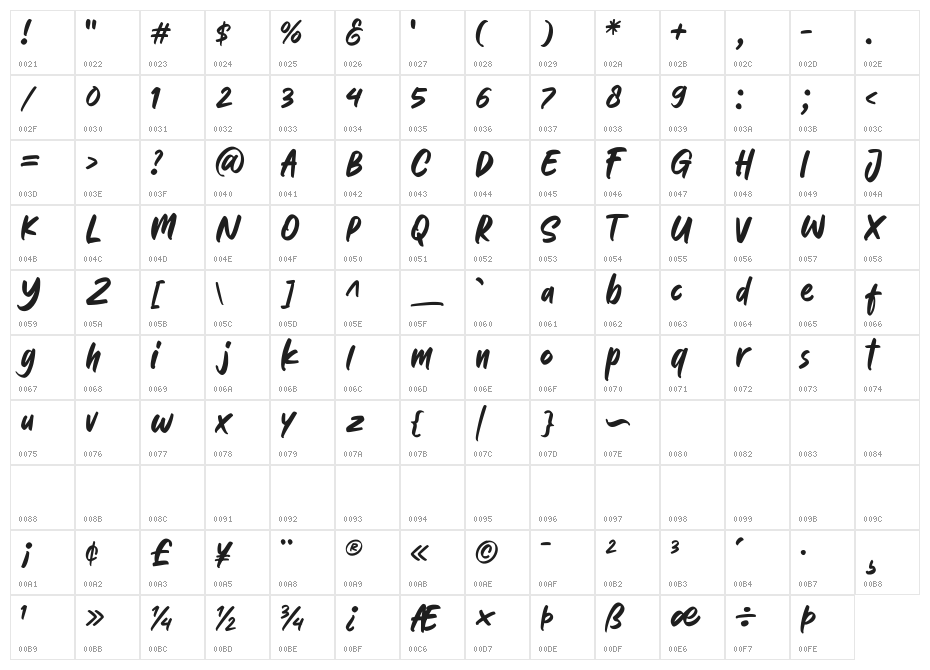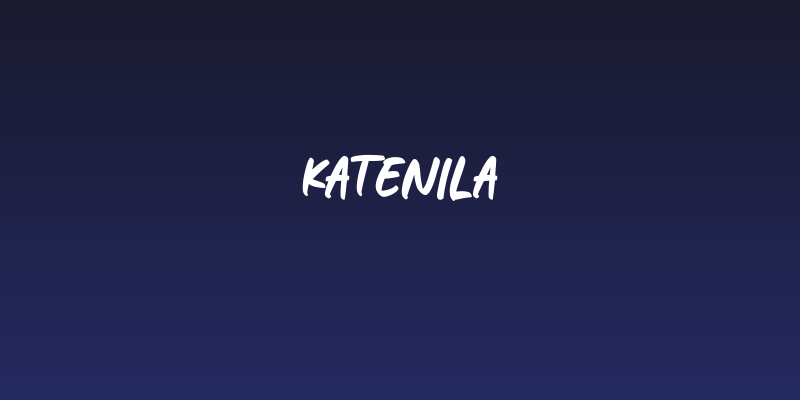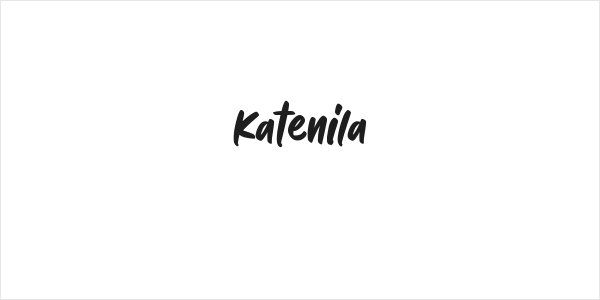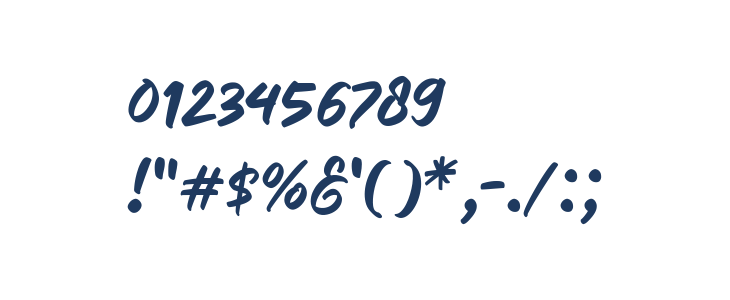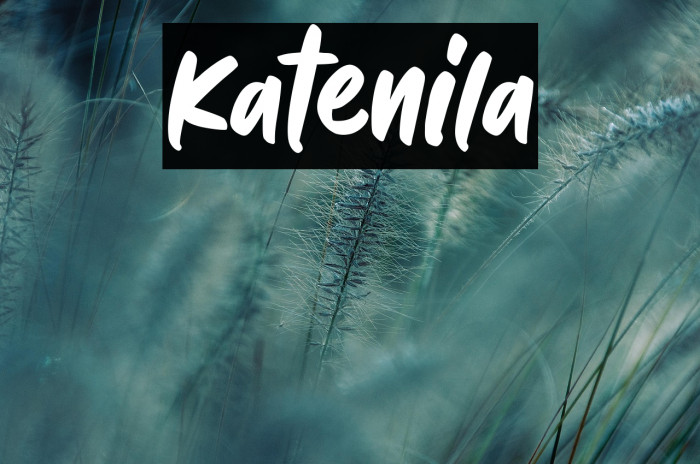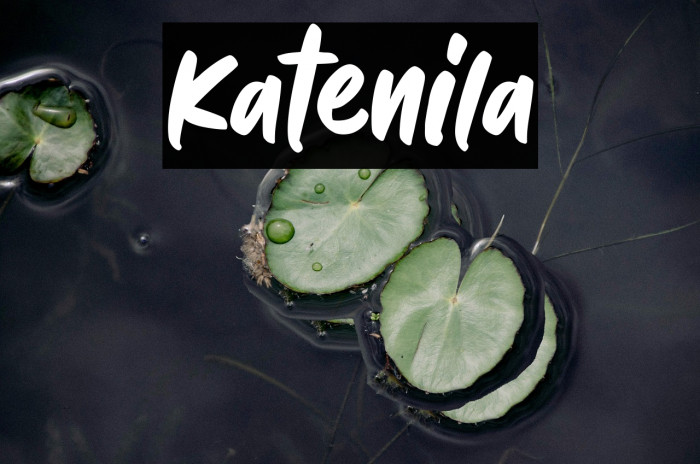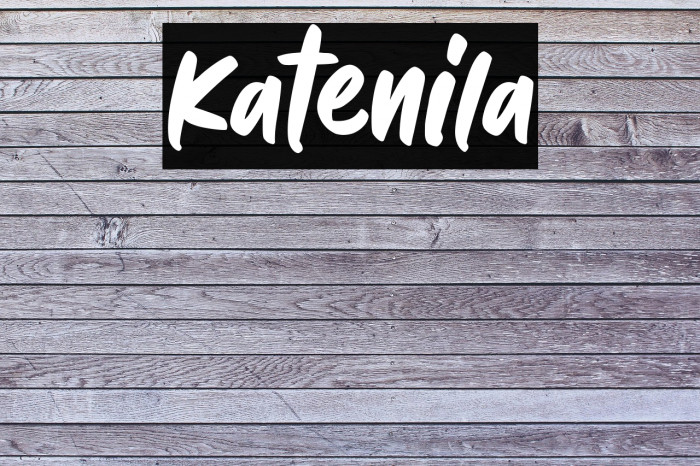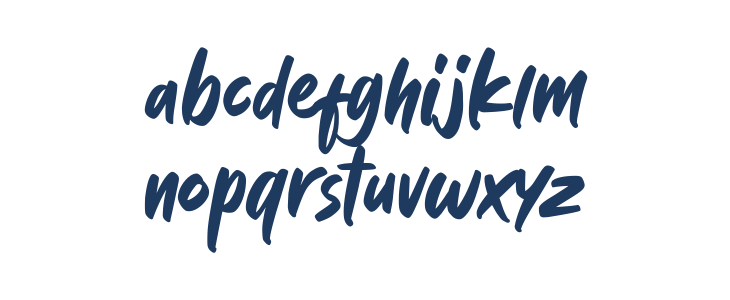
Katenila Font
Katenila Description
This font features a bold and energetic script style with a handwritten appearance. The letters are fluid and dynamic, showcasing a sense of movement and personality. The uppercase and lowercase characters maintain a consistent style, with rounded edges and a slight slant, adding to its casual and approachable feel. The numerals and special characters complement the alphabet with similar boldness and flair. This font is ideal for projects that require a personal touch or a creative, informal vibe.
| Overall Style | Casual and Energetic |
| Proposed Projects | Ideal for branding, social media graphics, invitations, and creative posters. |